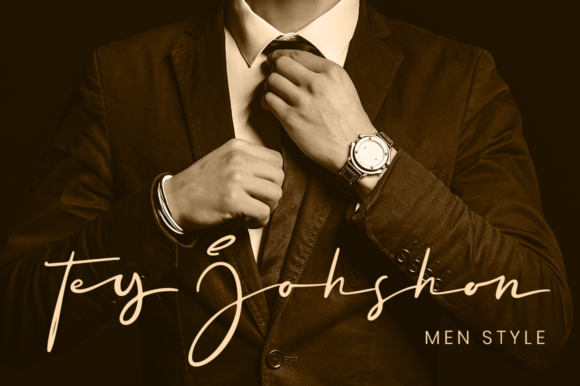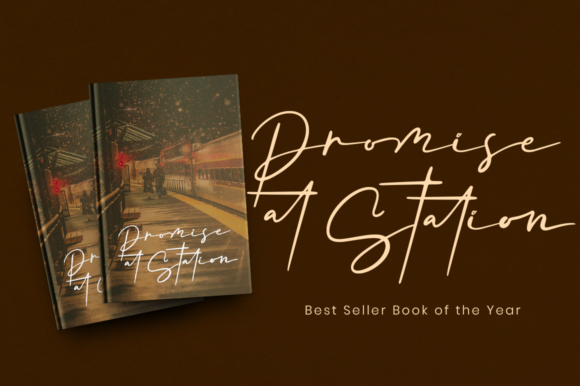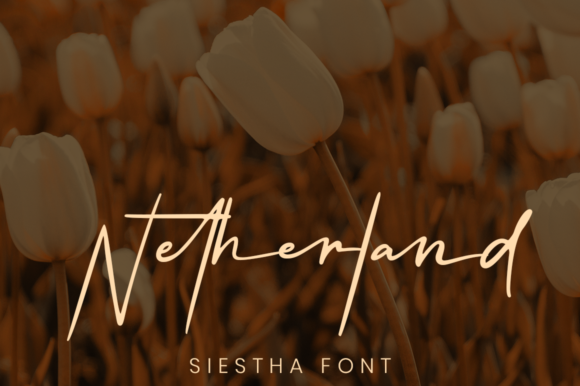
Introduction to Siestha Font
Siestha is a relaxed and incredibly authentic handwritten font.
It maintains its classy calligraphic influences while feeling contemporary and fresh This versatility will appeal to a wide range of crafty ideas, from letterheads and titles, to stationery.
Siestha Font offers exceptional quality and versatility, making it a valuable addition to your design toolkit. Whether you’re creating for personal projects or commercial use, Siestha Font delivers professional results.